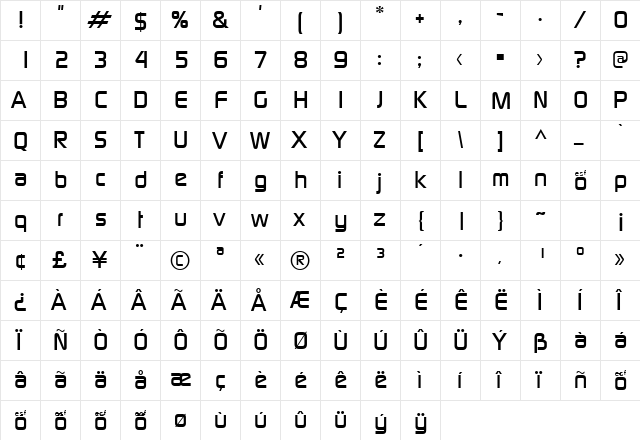
Danley Regular
Design Context for Danley Typeface
Danley offers clean, dependable letterforms without strong stylistic allegiance, making it a practical choice for designers who need flexibility.